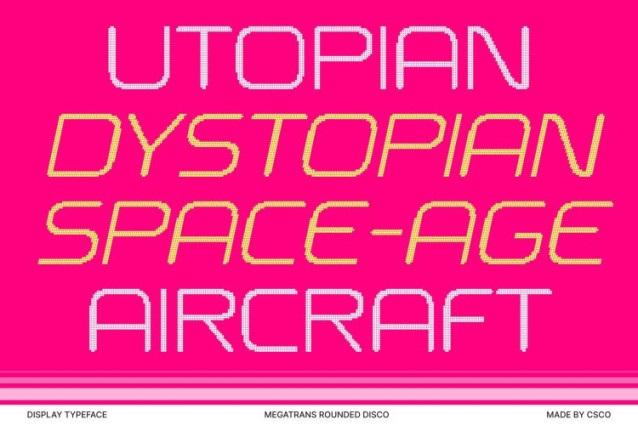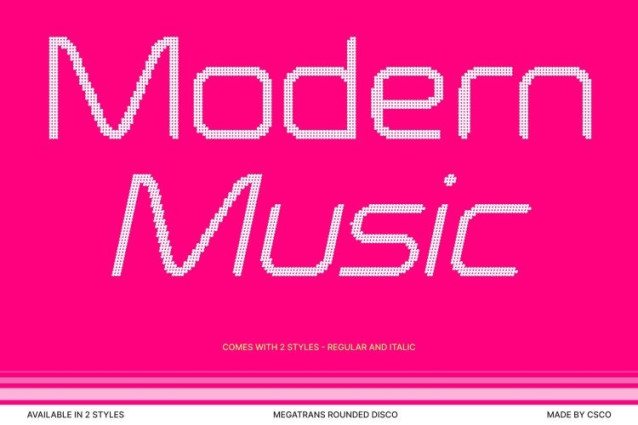
Megatrans Rounded Disco Font This is a futuristic techno sans serif font designed to deliver bold digital energy in every letter. Its rounded geometric structure creates a smooth, streamlined appearance, while the techno-inspired shapes add a strong sense of innovation, precision, and forward-thinking design. This is the kind of font that instantly communicates modernity, speed, and high-tech aesthetics.
Disco Effect for Vibrant Style
What makes this font stand out is its shimmering disco effect, adding depth, brilliance, and a stylish glow to each character. This effect introduces a lively rhythm that enhances its futuristic tone, making the font feel dynamic and visually electric. The combination of techno geometry and disco sparkle results in a look that is both modern and glamorous.
Perfect for Modern Branding and Visual Impact
This font is an excellent choice for brands seeking a bold, contemporary identity. Whether used in logos, product packaging, digital interfaces, or tech-driven branding, this font ensures your design remains sharp, memorable, and full of character.
Ideal for Posters, Titles, and Standout Designs
With its futuristic vibe and energetic disco shine, this font excels in poster layouts, headlines, event graphics, gaming visuals, and promotional materials. This font Disco brings instant impact guaranteeing your designs capture attention, radiate confidence, and leave a lasting impression.